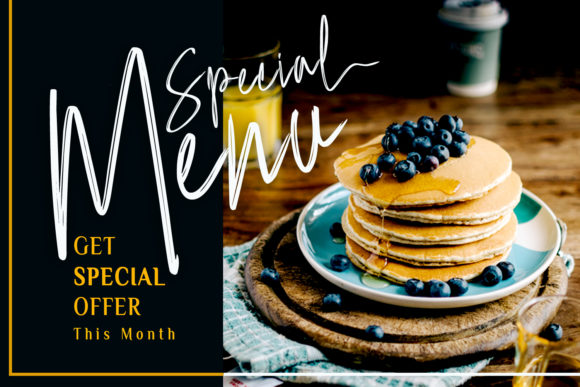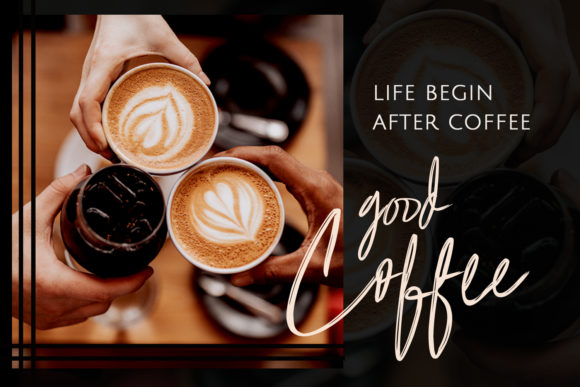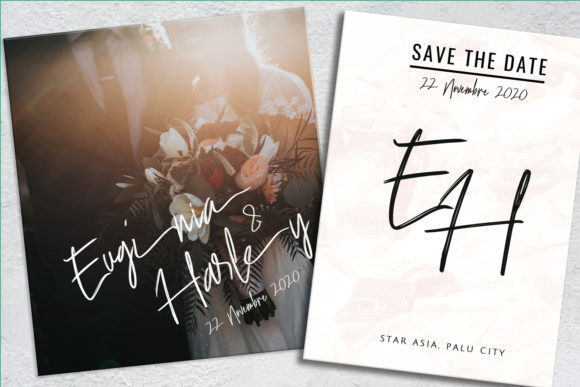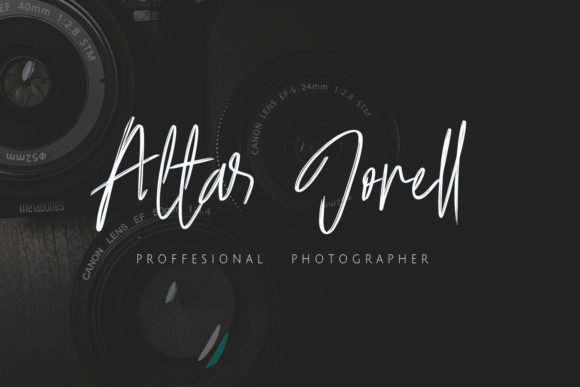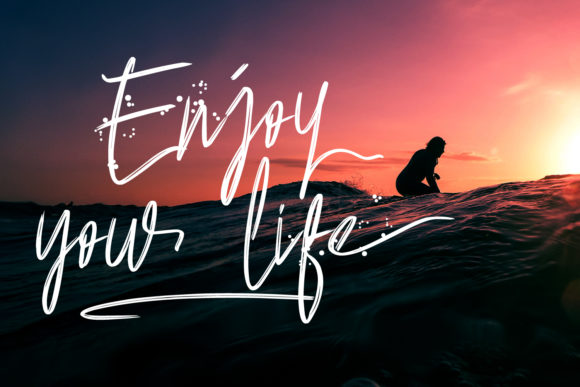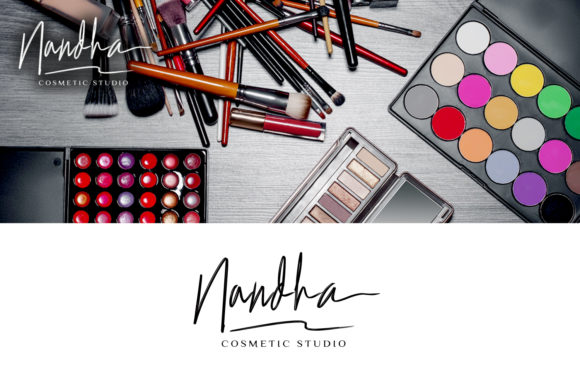
Introduction to Rubatti Font
Have you ever found yourself scribbling away in a journal, pouring your heart onto the page, and suddenly feeling a rush of creative energy? For designers, that feeling is not just limited to journaling – it’s what drives them to create something truly special. And that’s exactly what the Rubatti Font is all about.
With its elegant and flowing design, the Rubatti Font is the perfect addition to any creative project. Whether you’re working on a wedding invitation, a thank you card, or a logo, this high-quality font is sure to bring a touch of sophistication and class to your design. Its varying baseline, smooth lines, and gorgeous glyphs make it a valuable resource for designers looking to add a handwritten touch to their work.
Key Features of Rubatti Font
- High-quality design: The Rubatti Font offers a professional and sophisticated look perfect for creative projects.
- Unique characteristics: The Rubatti Font features a unique blend of modern and vintage elements, adding a touch of elegance to any design project.
Honest Review: Rubatti Font
I recently stumbled upon the Rubatti Font, a free download that caught my attention due to its sleek and modern design. As a designer, I appreciate high-quality design resources that can elevate my creative projects.
Here are some aspects that work well with the Rubatti Font:
- ✨ The font’s clean lines and simple shape make it perfect for digital design projects.
- ✨ It’s highly versatile and can be used in a variety of creative contexts, from logos to typography-based designs.
- ✨ The transparent background allows for seamless integration with any design element.
- ⚠️ The font may not be suitable for projects requiring bold, dramatic typography.
- ⚠️ The font family is relatively small, which may limit its use in larger-scale projects.
Overall, I’m impressed with the Rubatti Font’s potential as a design resource. While it may not be perfect for every project, it’s a solid choice for those seeking a clean, modern look.
Rubatti Font
The Rubatti Font is a versatile and high-quality design resource ideal for creative projects. Its clean and elegant design makes it perfect for various applications, from presentations to digital art.
Some tips for getting the most out of the Rubatti Font include:
- Using it for headings and titles to create a consistent design look.
- Applying it to text with a transparent background to create a subtle design effect.
- Combining it with other design elements to create a unique and creative design.
Common use cases for the Rubatti Font include presentations, digital art, and creative projects where a clean and elegant design is required.